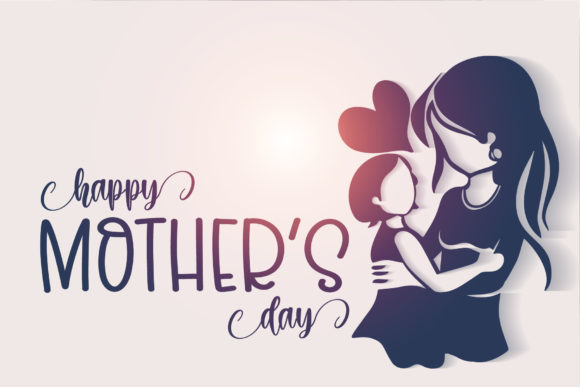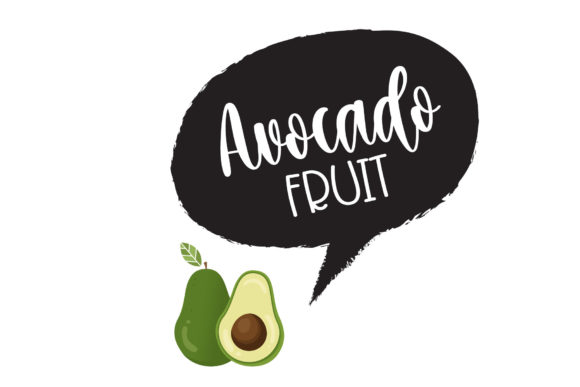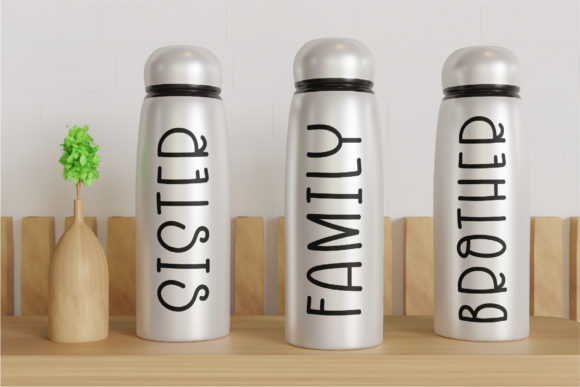
About Avocado Lover Font
Avocado Lover is a duo font (sans serif and script), which feels equally charming and elegant. It looks cute on any design which needs a customized touch.